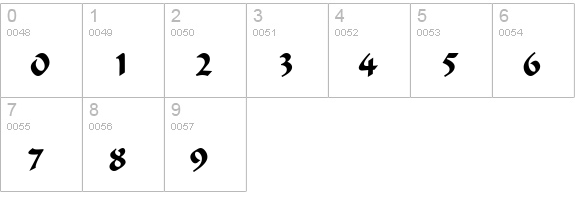
Flat Brush Normal Font Details
Flat Brush Normal is the standard, neutral variant in the Flat typeface family \xE2\x80\x94 well suited to general body text, paragraphs, and standard typographic work.
Flat Brush Normal font is a modern and stylish typeface that combines sleek lines with a touch of artistic flair. Its clean and legible design makes it perfect for a wide range of projects, from branding to social media graphics. The gentle brush strokes give this font a unique and dynamic look, making it stand out from the crowd. And the best part? Flat Brush Normal font is completely free to download at FontsMarket.com! Whether you're a designer looking to add a fresh touch to your creations or a business owner in need of a new font for your branding, this font is a versatile and accessible option. Don't miss out on the opportunity to enhance your projects with this eye-catching and contemporary typeface. Download Flat Brush Normal font today and elevate your designs with ease!